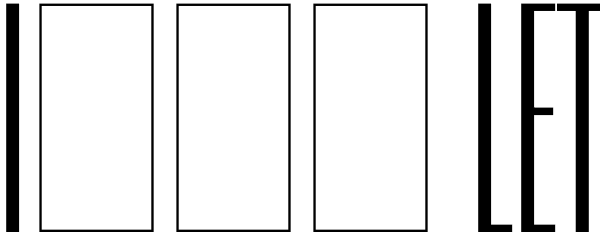
Iris
Designed during the late 1930s for American Typefounders, this all capital sans serif typeface has experienced a recent revival in popularity. The slender geometric letterforms provide a hint of the Art Deco period, but its application potential is...